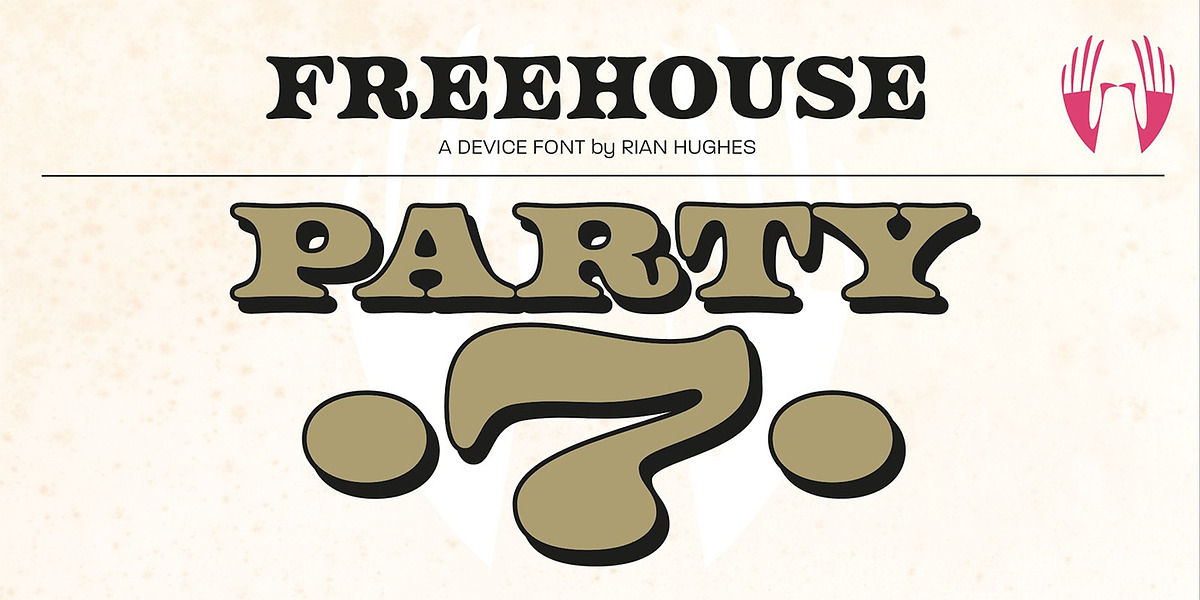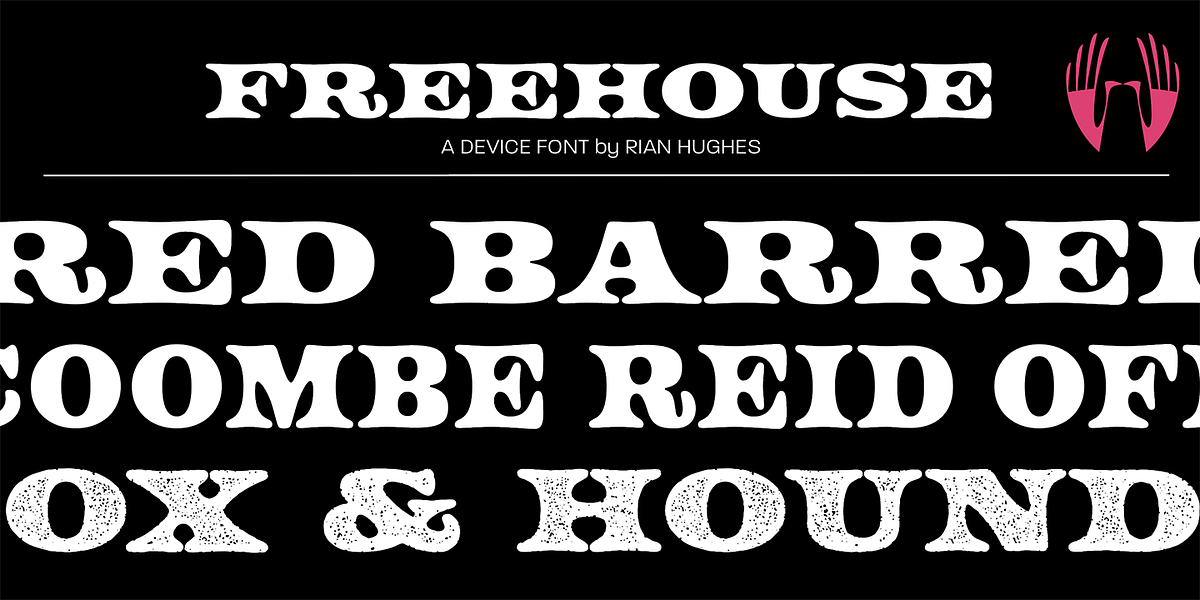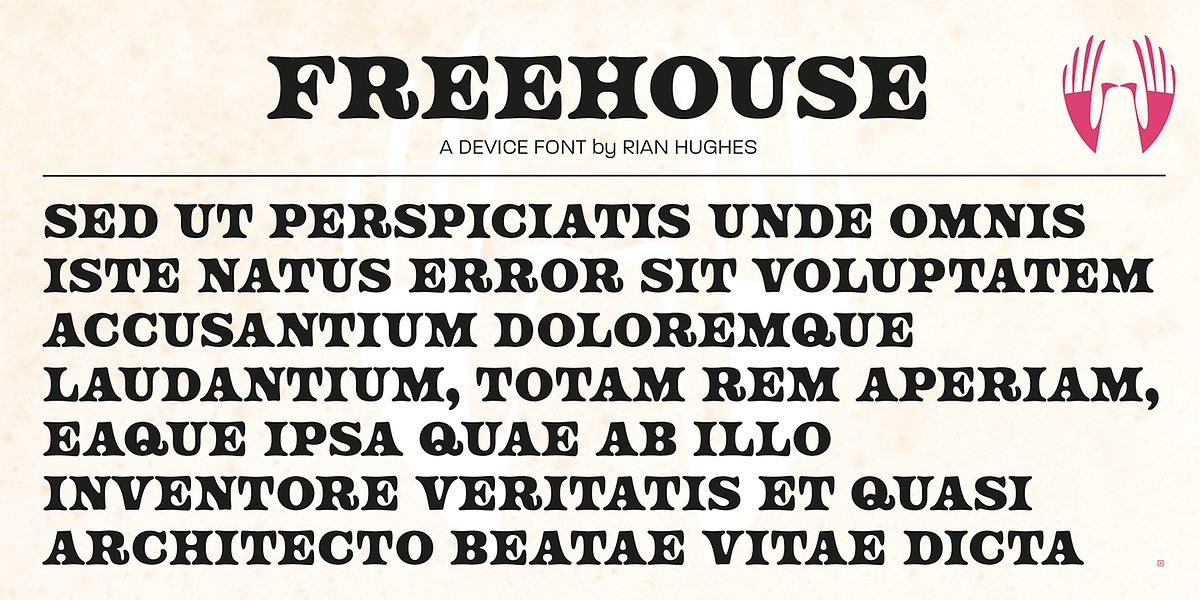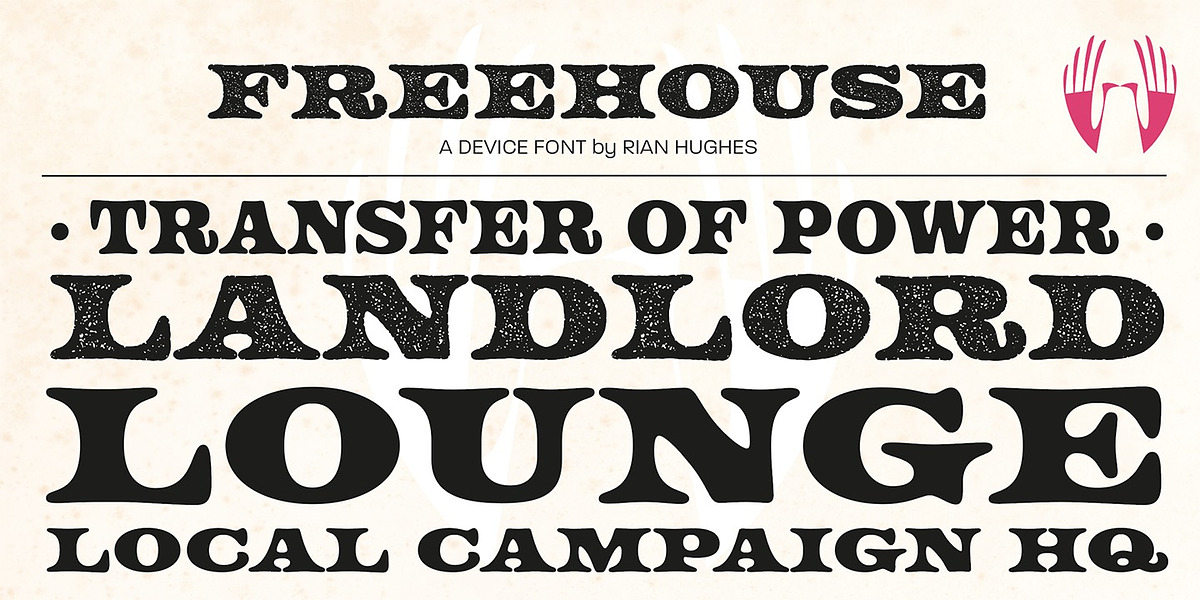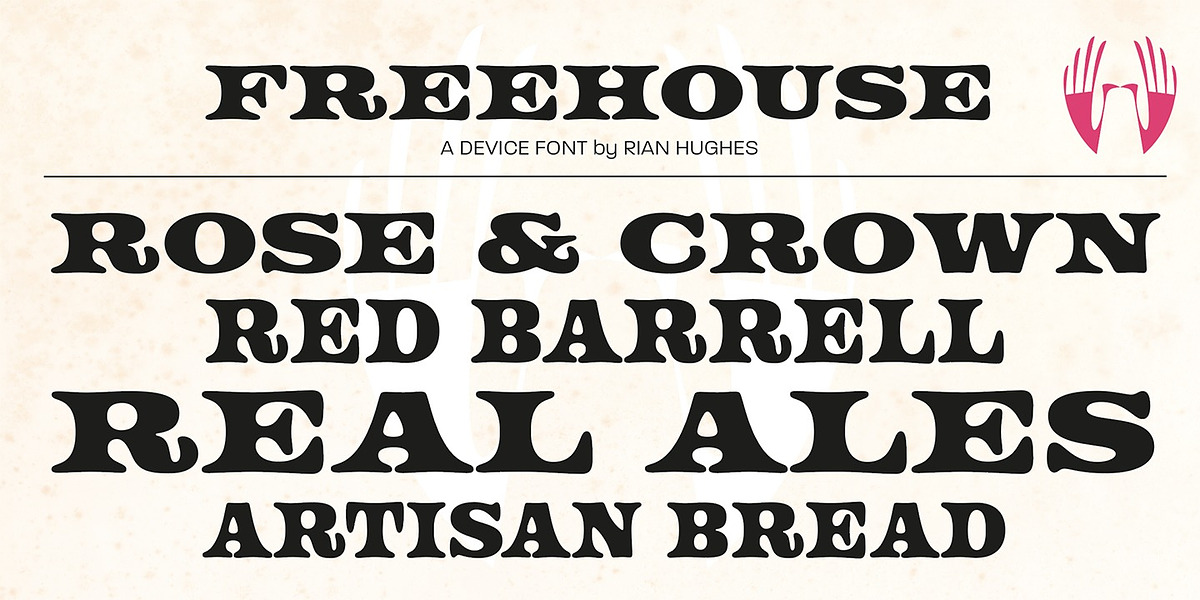
Freehouse
Freehouse is a display serif typeface inspired by the Watney's brewery logo. While originally based on Clarendon Bold Expanded, Freehouse features rounder serifs for a softer, friendlier feel. The font includes a full international character set and a distressed version that mimics the look of rough print.